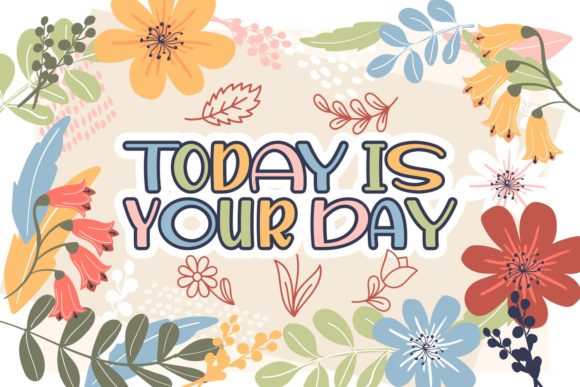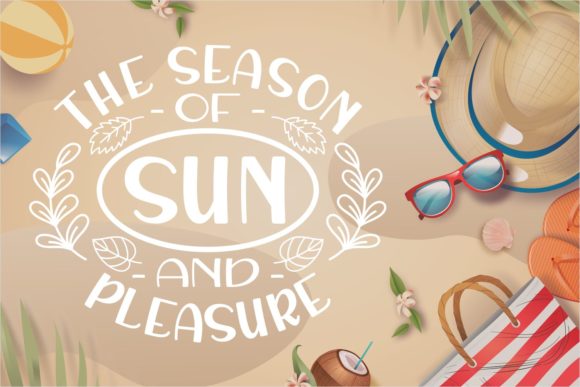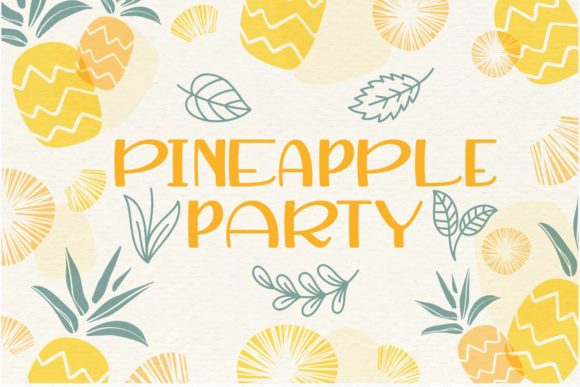
Spring is in the Air Font
About Spring is in the Air Font
“Spring Is In The Air” sounds absolutely delightful! With its fresh and fun handwritten style, adorned with beautiful floral elements, this font is sure to breathe life and vibrancy into your creative ideas.
By using “Spring Is In The Air” in your projects, you can capture the essence of springtime and infuse a sense of joy and freshness. Whether you’re working on seasonal designs, nature-themed projects, greeting cards, or any other creative endeavor, this font can create a captivating and cheerful atmosphere.
The handwritten nature of “Spring Is In The Air” adds a touch of authenticity, as if the words were playfully penned with love and excitement. This personal connection can resonate with your audience and evoke positive emotions.
The inclusion of beautiful floral elements in the font further enhances its appeal and makes it perfect for nature-inspired designs. These floral elements can be used as decorative elements or creatively integrated into your layouts, adding a touch of elegance and natural beauty.
Experiment with different colors and sizes to fully embrace the font’s fresh and fun vibe. It can be used for headlines, titles, or even as decorative accents to add a delightful touch to your designs.
While being creative, remember to maintain readability and legibility. Ensure that the text remains clear and easy to read, even with the addition of decorative floral elements.
In conclusion, “Spring Is In The Air” is a fresh and fun handwritten font that can bring the joy and beauty of springtime to your creative ideas. Its floral elements and playful style make it a versatile and captivating choice for various design projects. Embrace the freshness of “Spring Is In The Air” and let it be the font that brings your designs to life with a burst of vibrancy and charm.